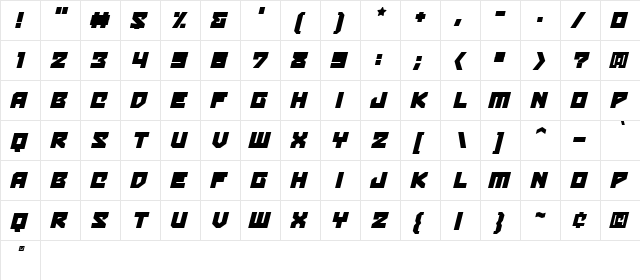
Bulletproof BB Italic
| Foundry | Nate Piekos. Blambot.com |
| Designer | Nate Piekos |
Design Context for Bulletproof BB Typeface
Bulletproof BB is a composed and adaptable typeface that performs quietly and consistently across a wide range of design contexts. The slanted form adds forward momentum and visual energy.
Pro Tip: Use Bulletproof BB for emphasis, pull quotes, and subheadings where its slanted energy can add rhythm to the layout.